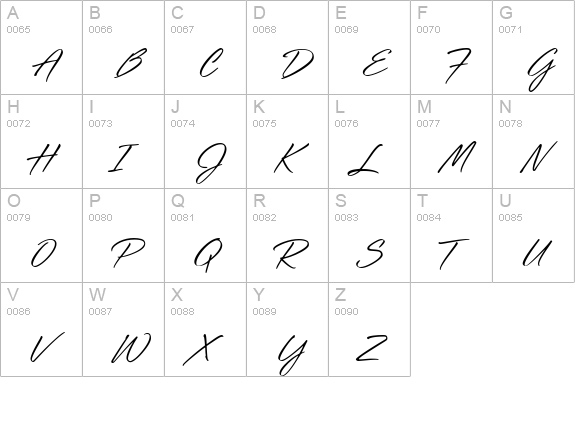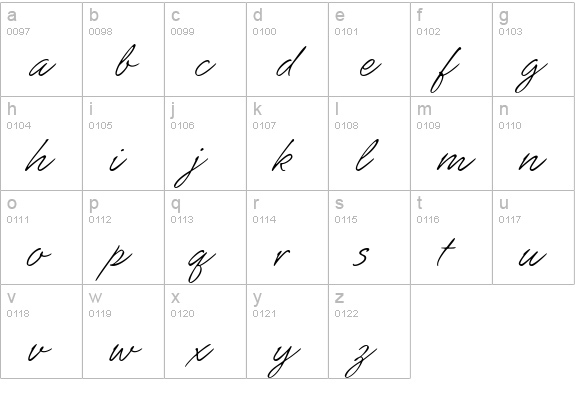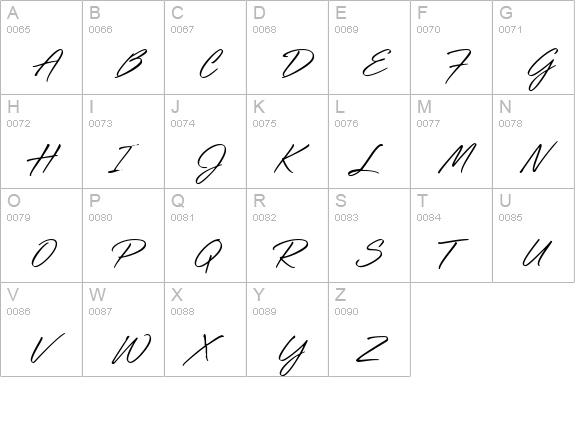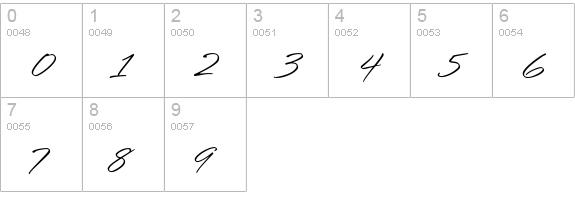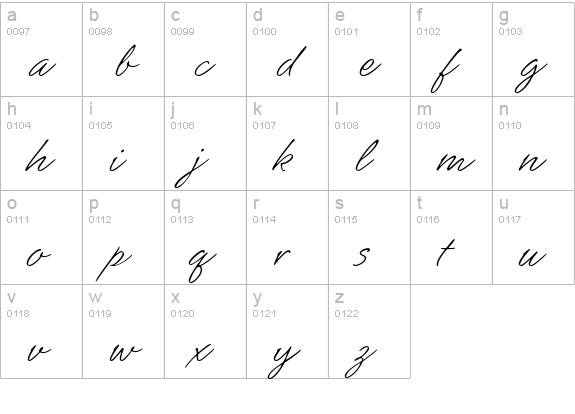
SlashHmk is a stunning and versatile font that exudes modernity and elegance. This font is perfect for a wide range of design projects, from logos and branding to headlines and social media graphics. With its clean lines and sharp edges, SlashHmk adds a touch of sophistication to any design. What sets SlashHmk apart is not only its unique style, but also the fact that it is available for free. Yes, you read that right. This incredible font can be downloaded at absolutely no cost from FontsMarket.com. We believe that great design should be accessible to everyone, which is why we are delighted to offer SlashHmk as a free resource. Whether you are a professional designer or a creative enthusiast, SlashHmk will surely become your go-to font. Its versatility allows it to be used in various design projects, giving you the freedom to create stunning visuals that truly stand out. The attention to detail in SlashHmk is evident, making it a font that is both visually striking and highly legible. With its bold and contemporary aesthetic, SlashHmk is perfect for making a statement. Whether you are designing a sleek and modern website or creating eye-catching advertisements, this font will add a touch of sophistication and professionalism to your work. Its clean and precise lines ensure that your message is delivered with utmost clarity and impact. Don't miss out on the opportunity to add SlashHmk to your design arsenal. Download this incredible font for free at FontsMarket.com and unlock a world of creative possibilities. With SlashHmk, you'll have the power to create visually stunning designs that leave a lasting impression.